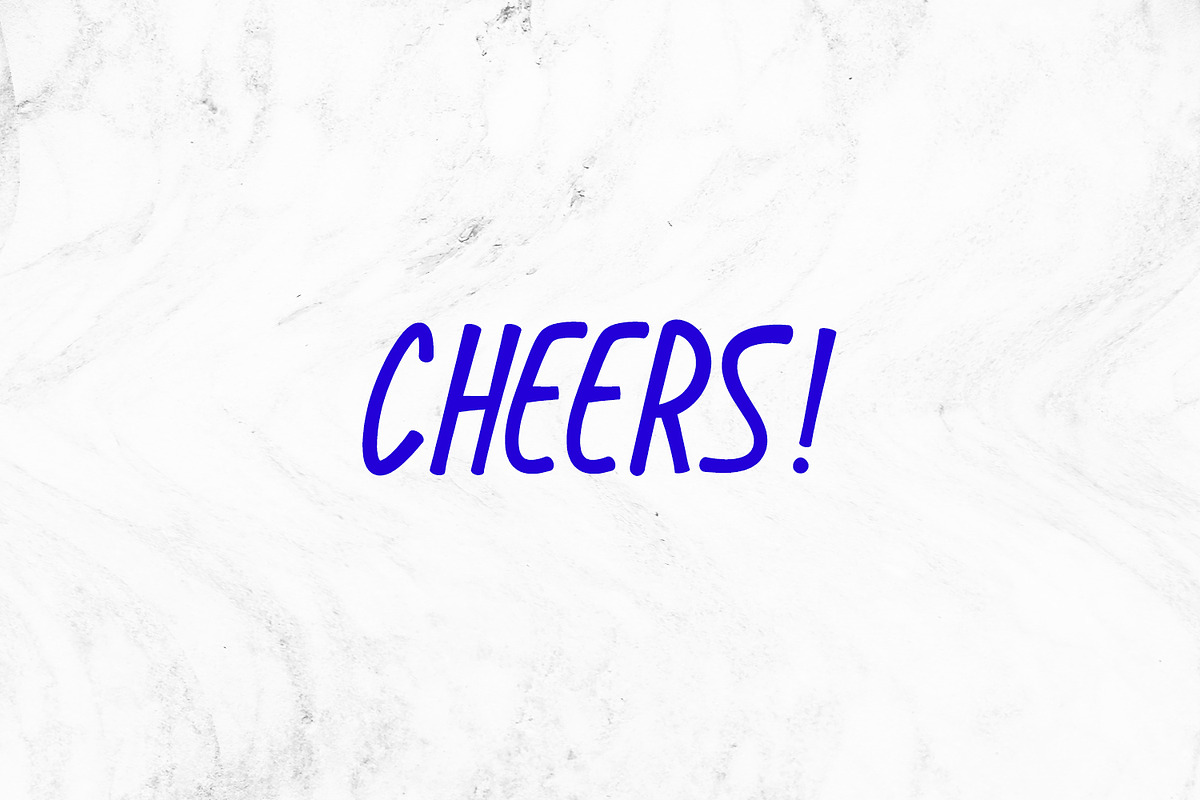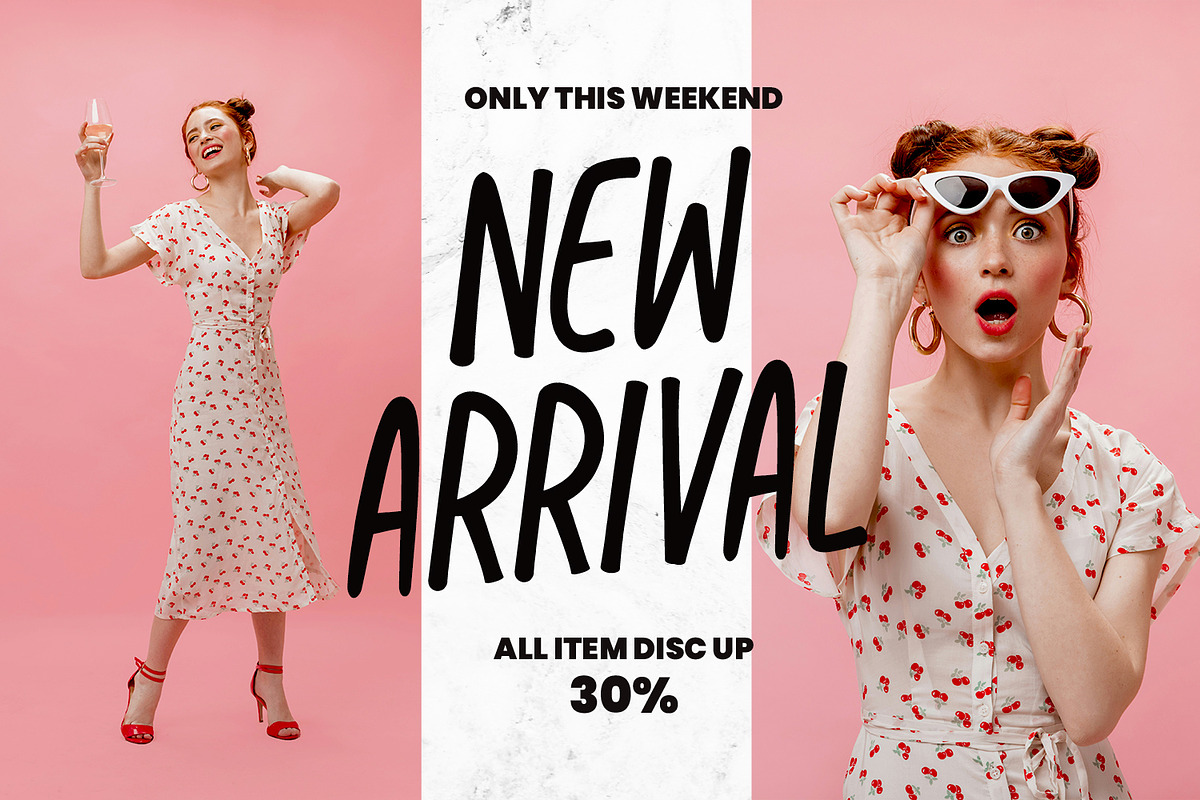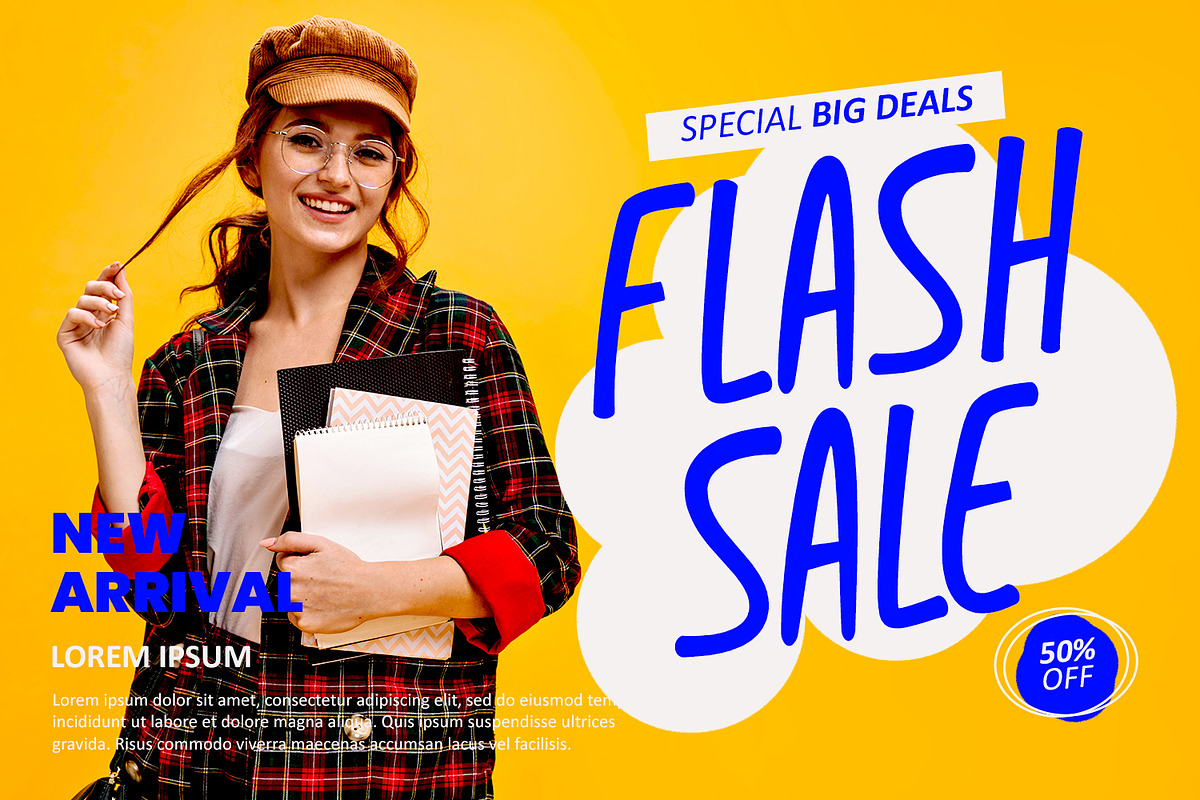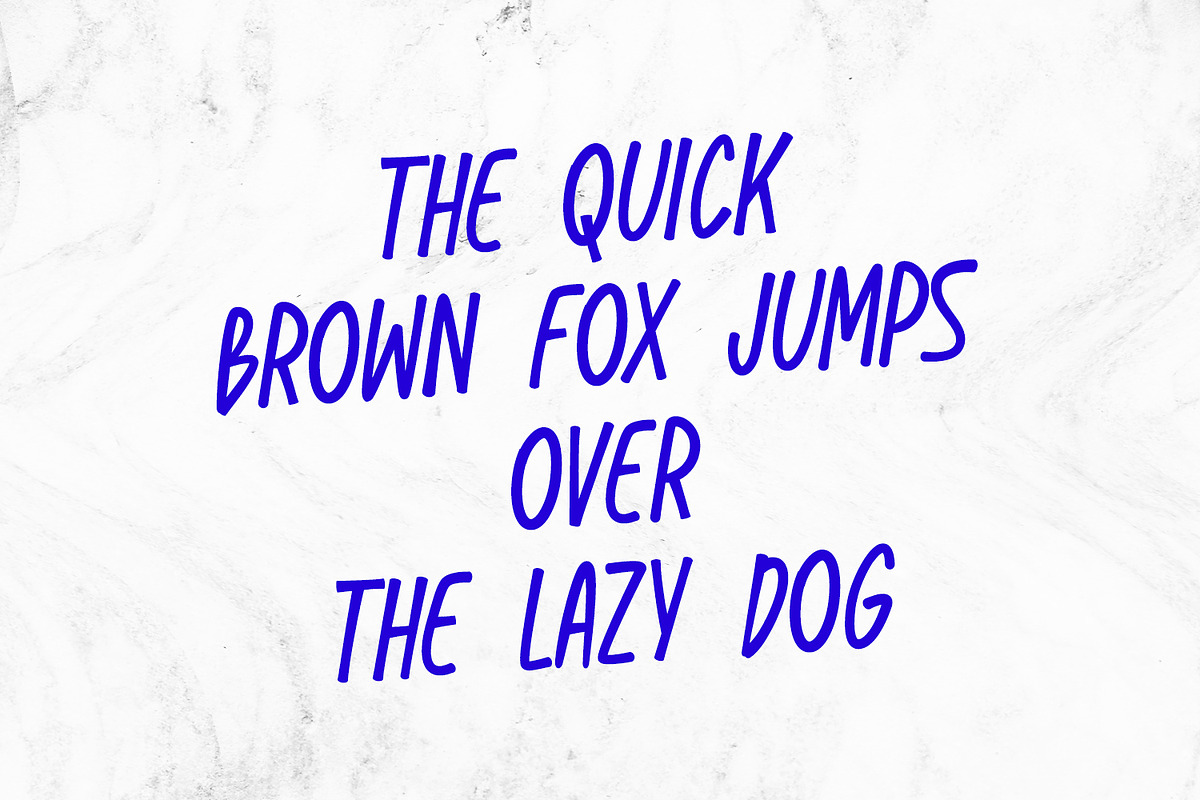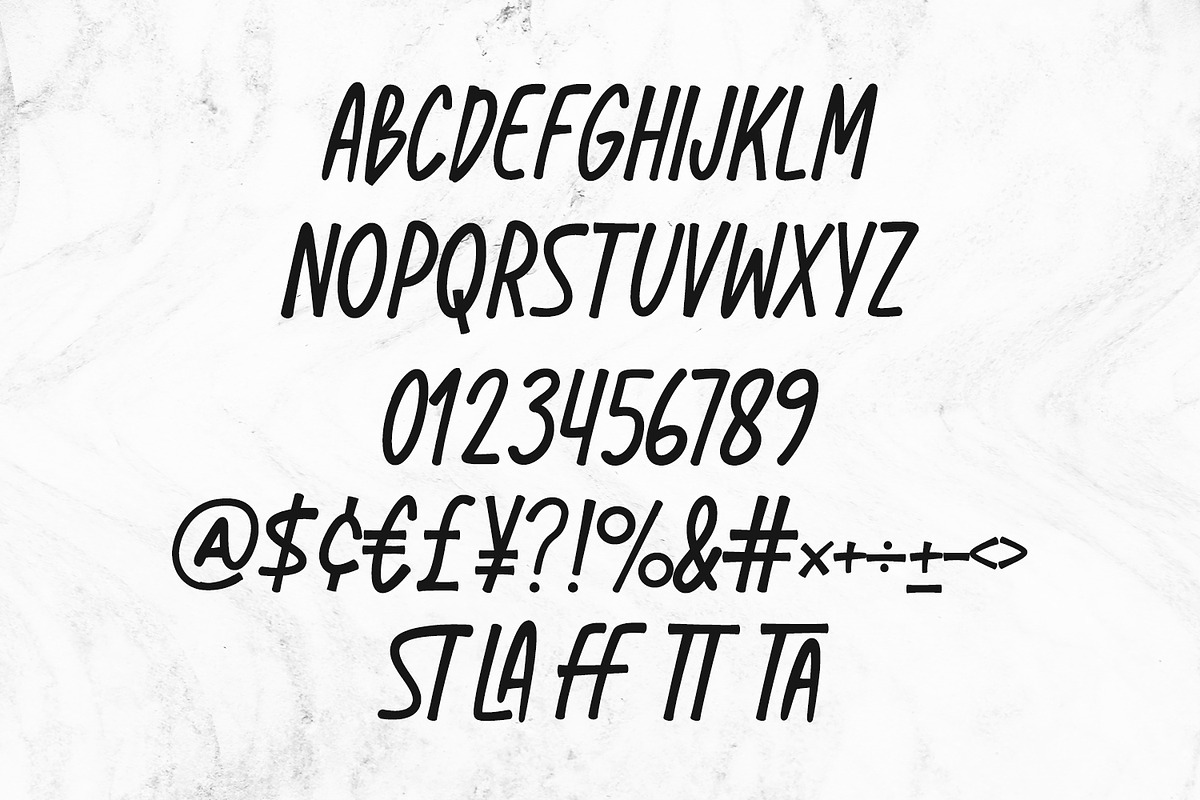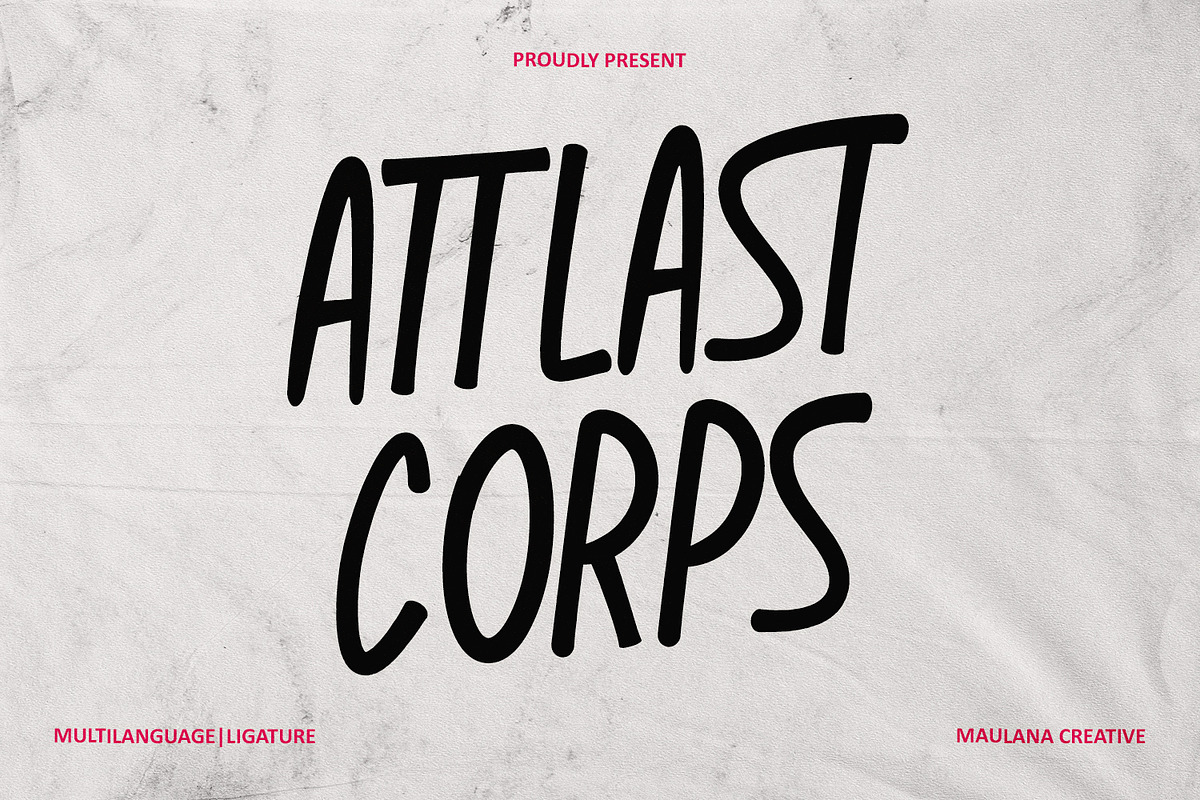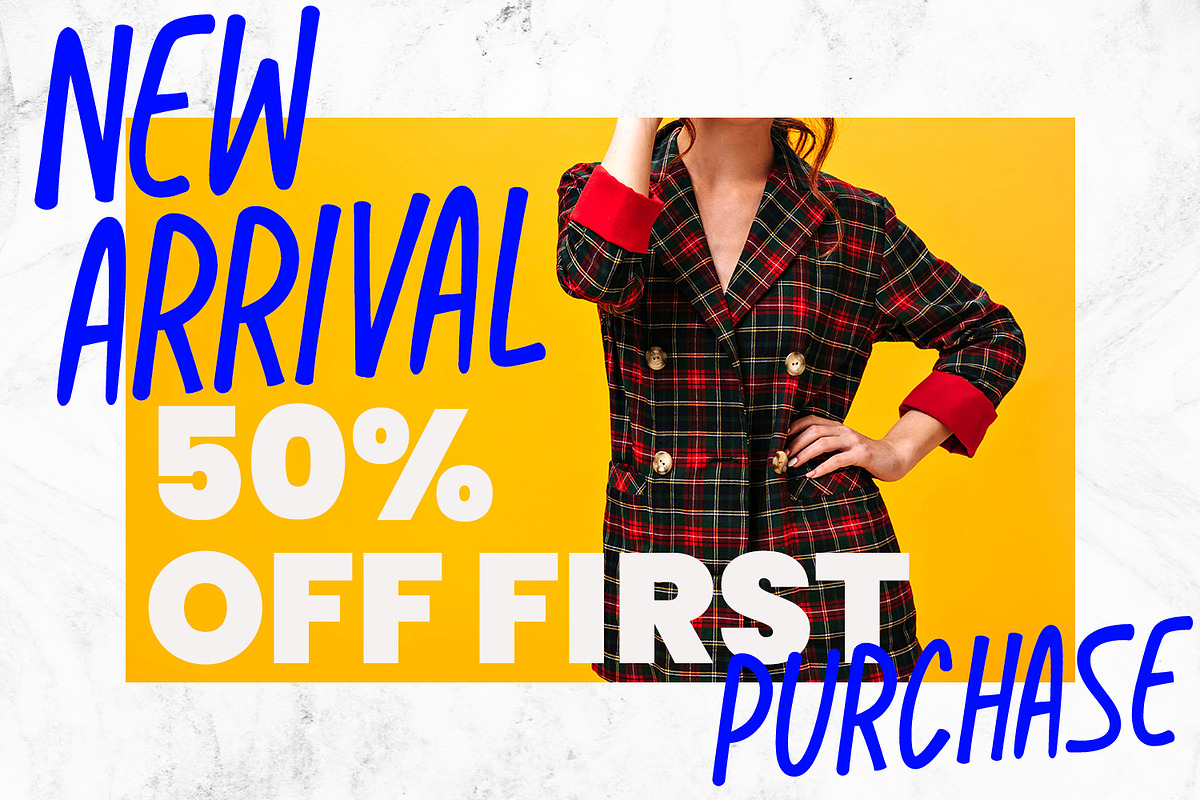
Attlast Corps Banner Discount Style
Attlast Corps is stylish handwritten display font combines modern elegance with playful energy, making it the perfect choice for eye-catching designs. Its tall and slightly quirky letterforms give a natural handwritten vibe that works beautifully for branding, fashion, social media posts, posters, packaging, invitations, and promotional graphics.
The font’s simple strokes and smooth curves create a trendy yet approachable feel, perfect for lifestyle brands, creative agencies, and anyone wanting to stand out with personality. With multilingual support and versatile usability, this font is ideal for headlines, product launches, advertising campaigns, and vibrant editorial design.
Make your projects shine with a handwritten font that balances fun, modernity, and style.